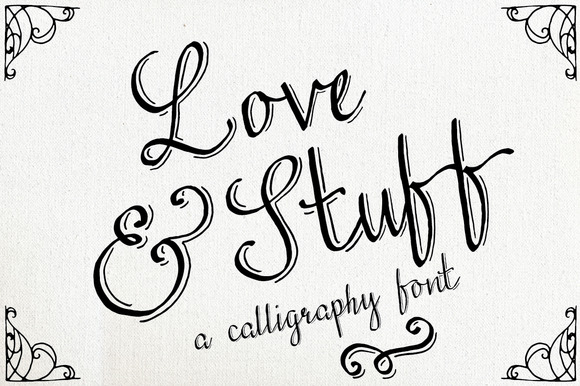
Unleash the beauty of handwritten artistry with Love & Stuff Pack Font, an exquisite script font that captures the essence of elegance and sophistication. Let your creativity bloom as you craft stunning wedding invitations, heartfelt thank-you cards, and captivating designs that leave a lasting impression.
With Love & Stuff, you'll add a touch of class and personality to your projects. Each letter dances with a vintage 3D effect, giving your words a captivating three-dimensional allure. Watch as your designs leap off the page, mesmerizing your audience with their exquisite details.
The best part? You'll receive an extra font packed with an array of beautifully designed catchwords. Enhance your projects with words like "About," "Love," "Thank You," and more, all rendered in the same charming script. Add a touch of elegance to your presentations, social media posts, or any other digital creation.
Step into a world of limitless creativity and heartfelt expression with Love & Stuff Pack Font. Download it today and elevate your designs to new heights of beauty and sophistication.
- Script font with a vintage 3D effect
- Extra font with a collection of beautifully designed catchwords
- Perfect for creating wedding invitations, thank-you cards, and elegant designs